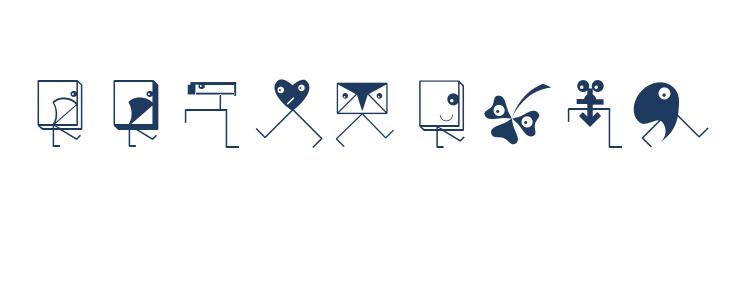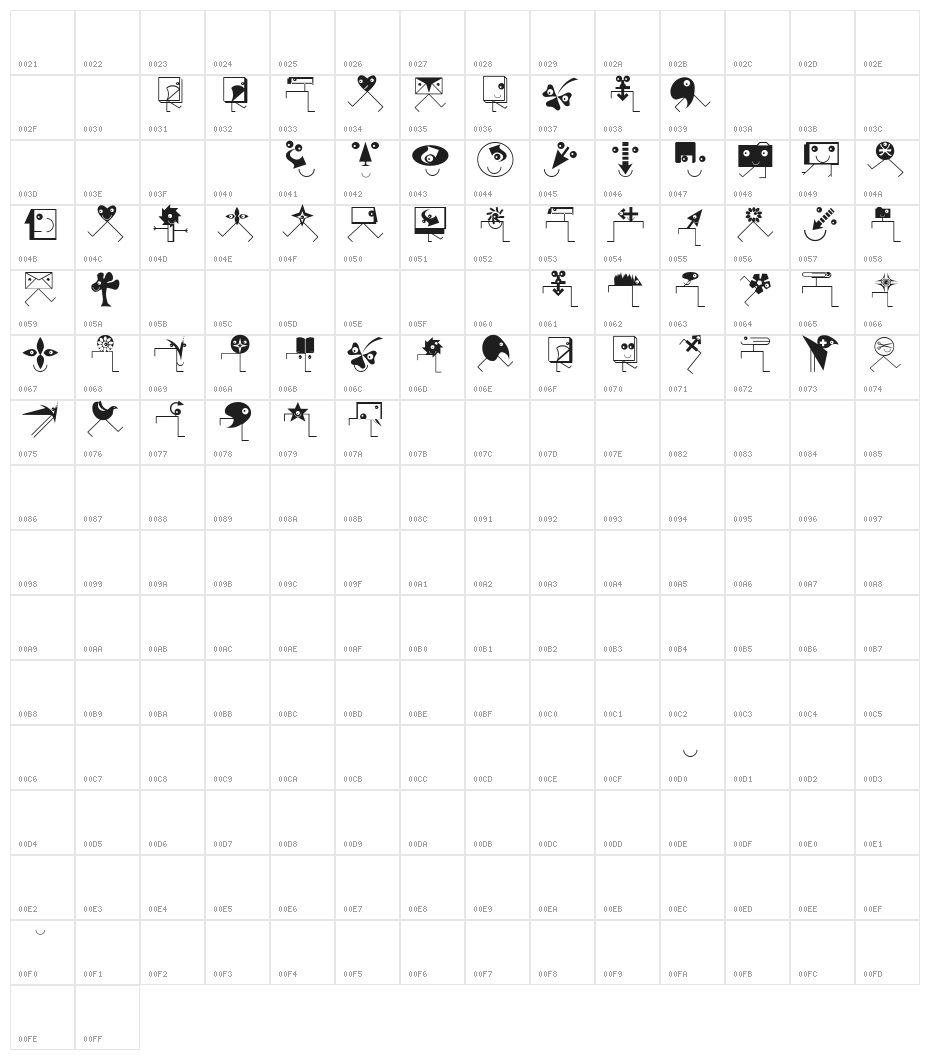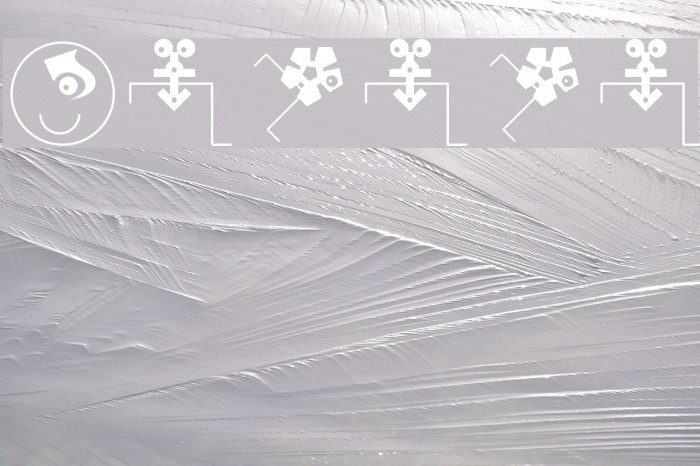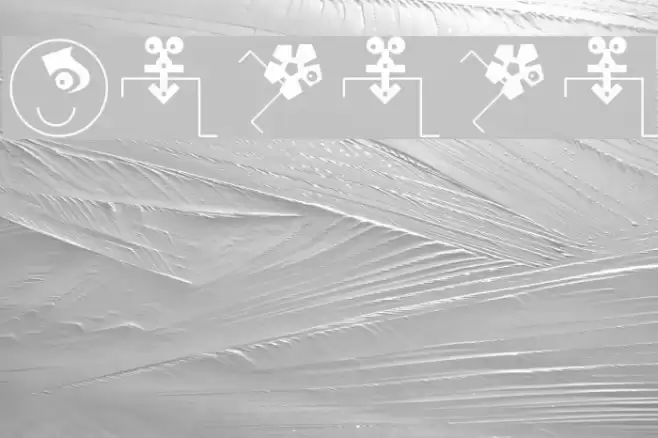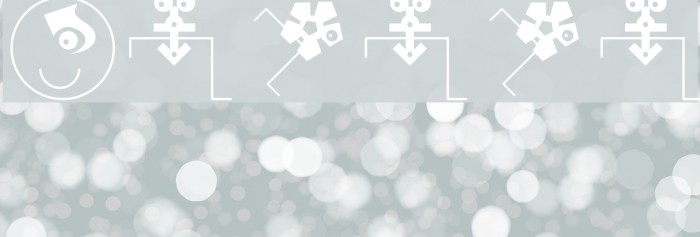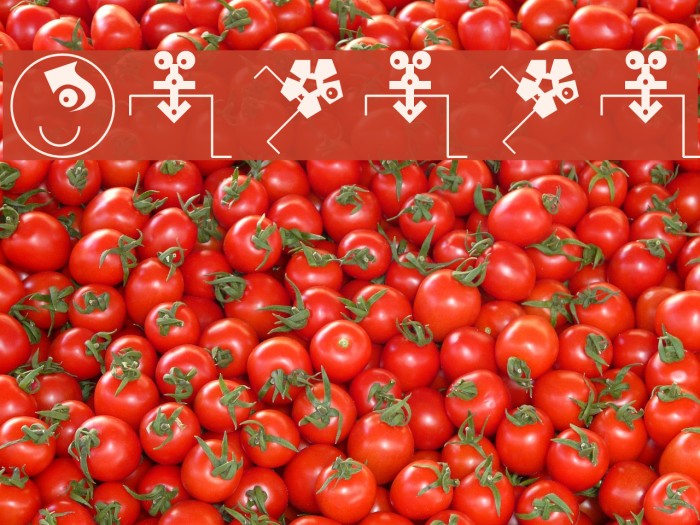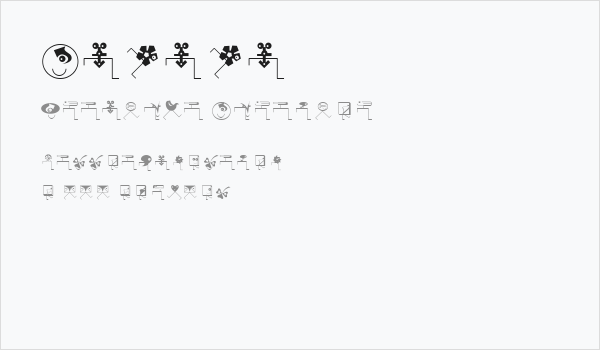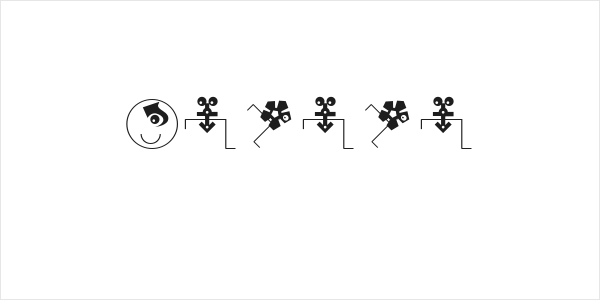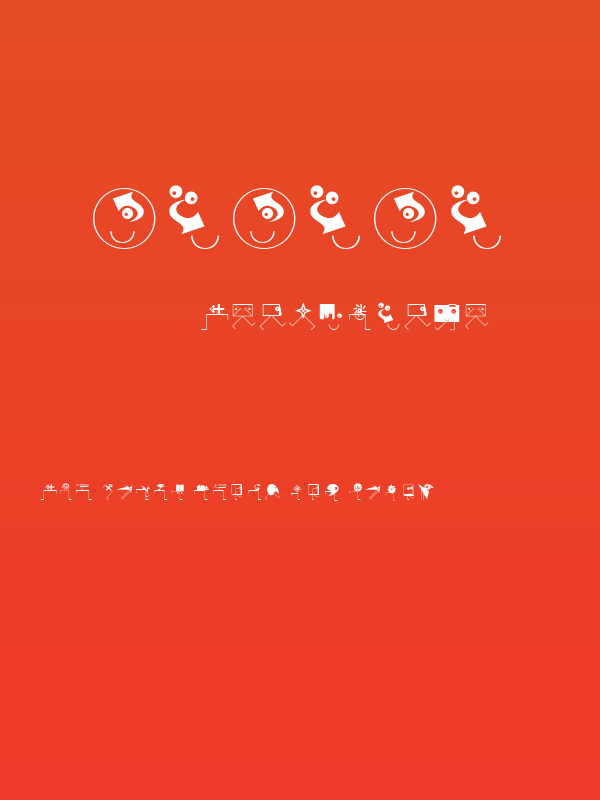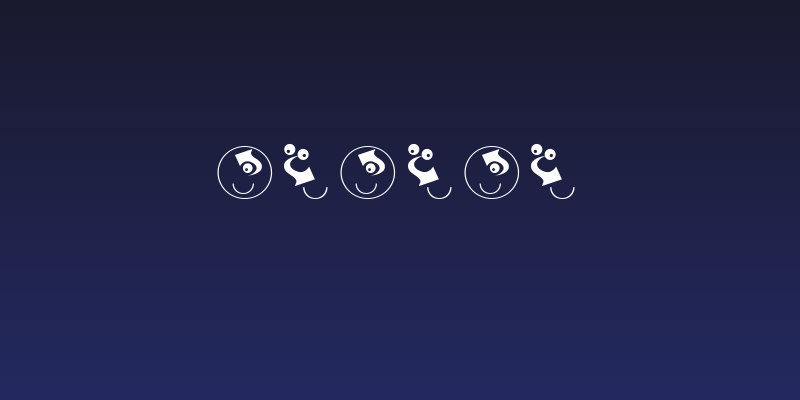
Dadada Font
Dadada Description
This collection of characters is a whimsical and playful set of pictograms that resemble stick figures with various facial expressions and accessories. Each character is unique, featuring elements like hats, glasses, and other decorative motifs. The figures are composed of simple geometric shapes, such as circles and lines, giving them a minimalist yet expressive appearance. The overall design is highly creative, with each character conveying a distinct personality or theme. This set is not a traditional font but rather a series of artistic representations that could be used for decorative purposes or as part of a creative project.
| Overall Style | Playful, Artistic |
| Use Case | Decorative art, Creative projects |
| Proposed Projects | Ideal for creative projects, children's books, educational materials, or decorative art pieces. |